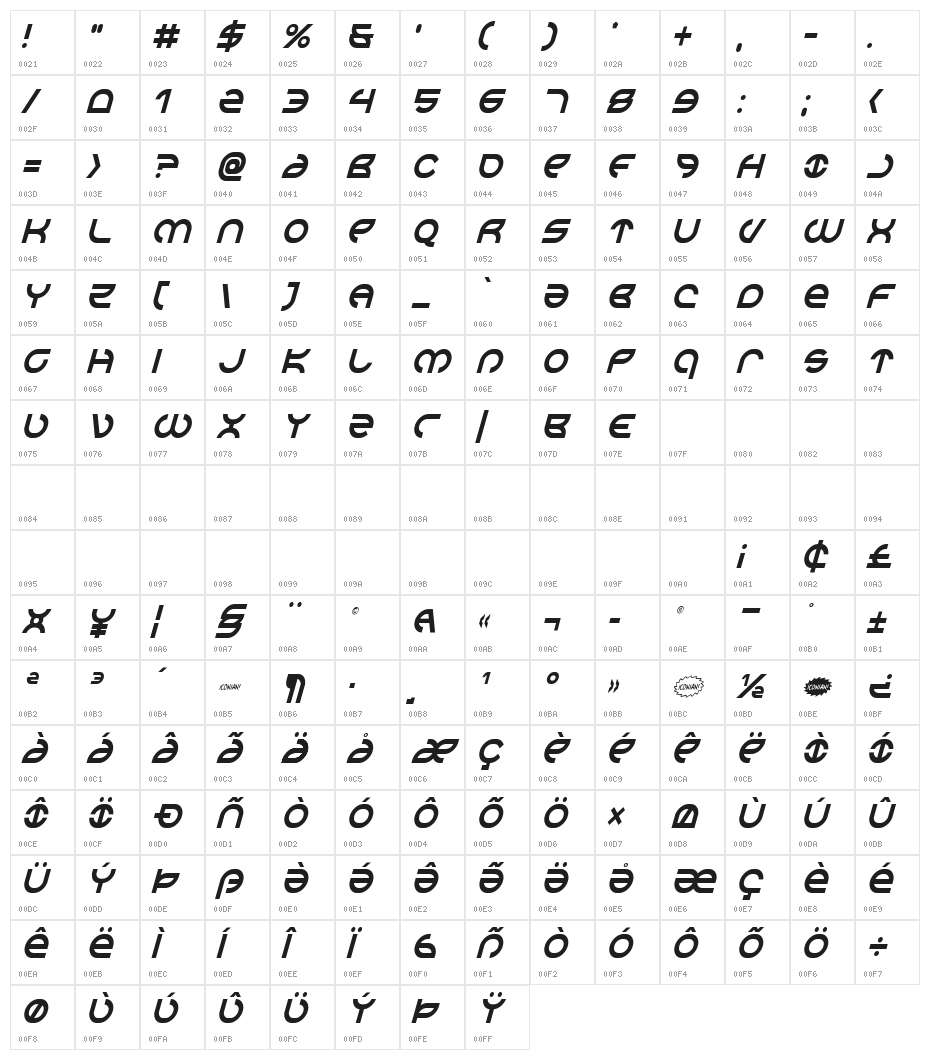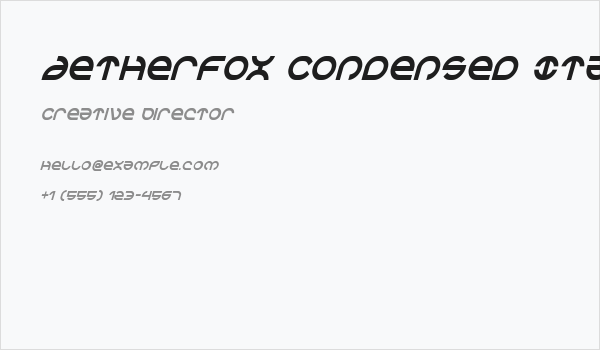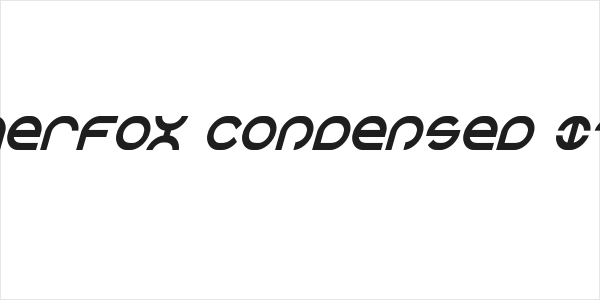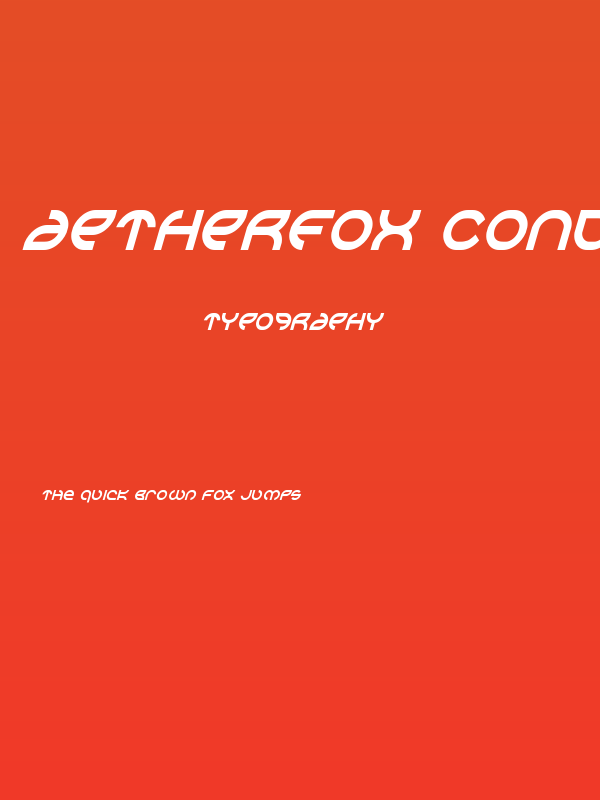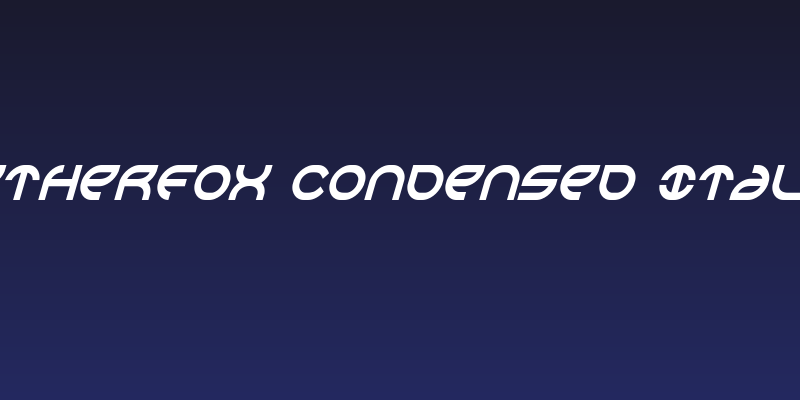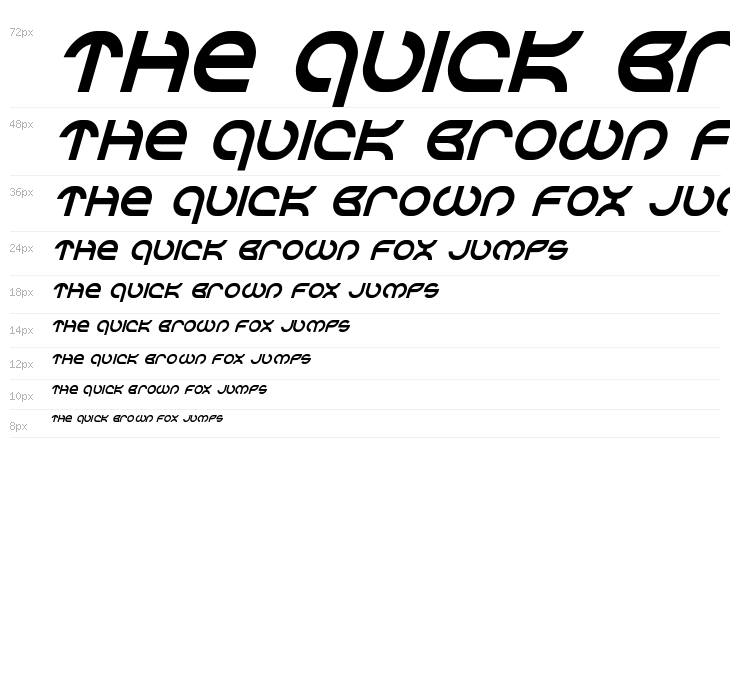
Aetherfox Condensed Italic Font
Aetherfox Condensed Italic Description
This font features a sleek, futuristic design with a condensed and italicized style. The characters are uniquely crafted with sharp angles and smooth curves, creating a dynamic and energetic appearance. The uppercase and lowercase letters maintain a consistent flow, while the numbers and special characters complement the overall aesthetic. The font's distinctiveness is enhanced by its tight character spacing and medium contrast, making it ideal for projects that require a modern and edgy look.
| Proposed Projects | Ideal for sci-fi themed projects, tech branding, modern logos, and dynamic headlines. |